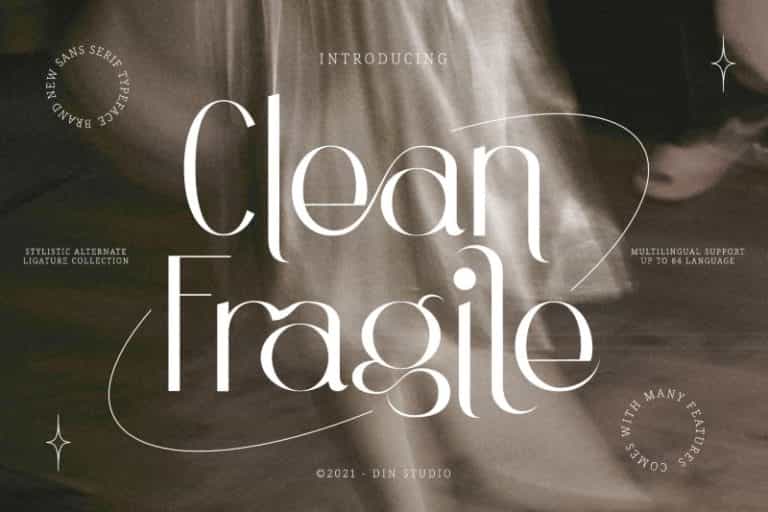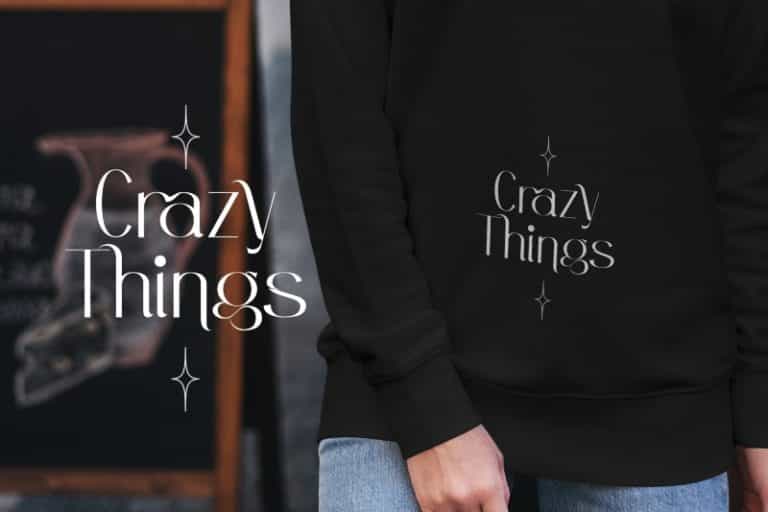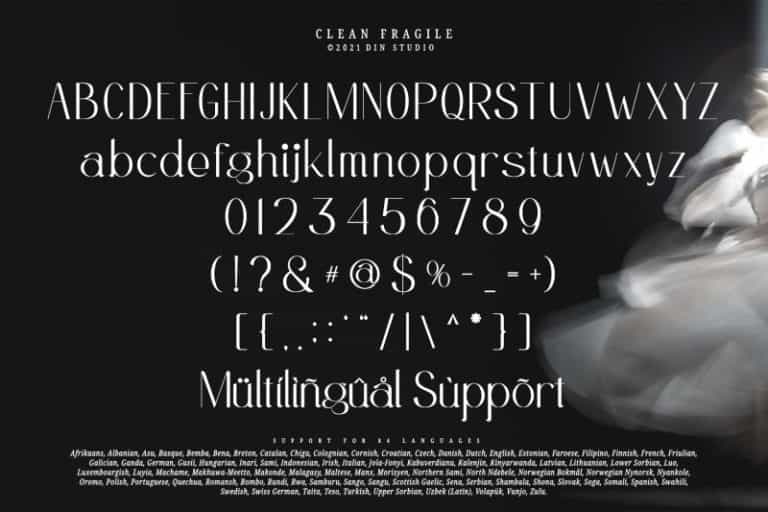
Clean Fragile is an exquisite sans serif font designed with a contemporary aesthetic, ideal for anything exciting and straightforward. Every stroke, curve and curve has been meticulously created to bring joy and elegance into every presentation, design project or website image that uses this font. A surefire hit.